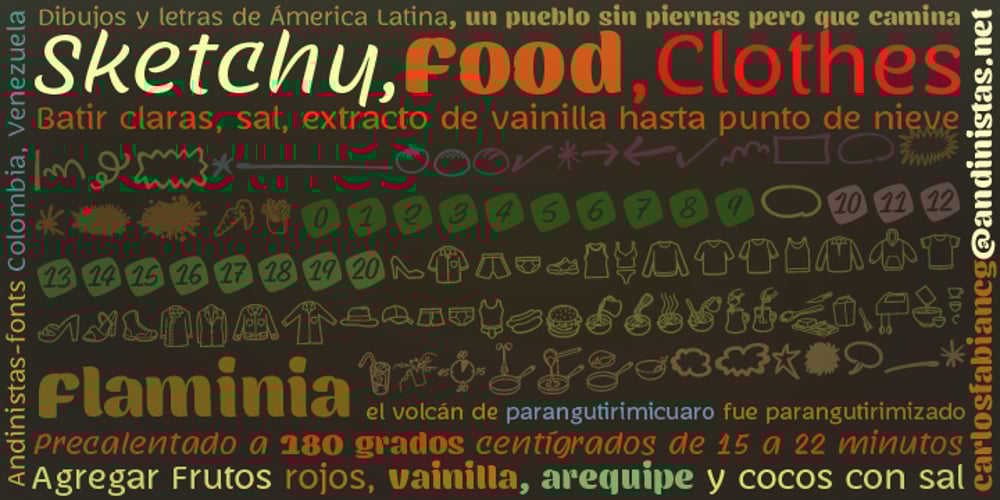
Flaminia Font Family was designed by Carlos Fabián Camargo Guerrero and published by Andinistas. Flaminia contains 4 styles and family package options. Flaminia is a typeface family of 4 members designed by Carlos Fabián Camargo G. The central idea started as Dingbats and titles labeled with fine-tipped brushes and flat tip for graphic design related restaurant menus, instructions, packaging, food containers and labels. Thus began the process of drawings and letters integrated by shapes and counterblocks that seem inaccurate yet but at the same time clean and attractive. For this reason each variable suggests fresh brushstrokes that combine ideas from Roman and italic calligraphy. Flaminia members work separately or together by solving needs in different scenarios. This will enhance its properties in order to control and diagram titles, subtitles and short paragraphs with an effusive and manuscript character. Flaminia is useful for generating a flavor of “hand lettered by skilled artists lettering.” In conclusion, Flaminia Regular and Italic are used to write short paragraphs. His ascending and downs are lower that the X height. Its width is imperceptibly condensed to save horizontal space. Its smooth lines and finishes simulating a crescent moon have been made with fine-tipped brush. The contrast between thick and thin has medium intensity. Its complement is an ideal italic to emphasize words and phrases. Its conceptual characteristics are similar with foundation’s handwriting, except for his companion who takes ideas from the ornamental italic calligraphy. Flaminia Black is compact and ideal for ranking information such as words and titles. Its personality is based on ornamental penmanship italics mixed with humanistic ideas outlined with contrast-type, flat-tipped brush thickness. Its overall width is slightly condensed, rising and falling are short compared to an exaggerated X height. Its smooth lines and terminations as in a crescent moon simulate the path of a broad brush. Its amount of contrast between strokes have average intensity. In brief, push to the limit parameters such as the type and amount of contrast, size, backward, forward, overall width, etc. And finally, Flaminia Dingbats offers three sets of different illustrations, a total of almost 90 drawings useful in communications related to: Food, Clothes and Sketchy. Each carefully wrought through research, testing, analytical design, visual strategy and high-definition of Bezier paths, optimizing time and work to their users. And in conclusion, I have plans to continue expanding the family with more complete versions in the future.